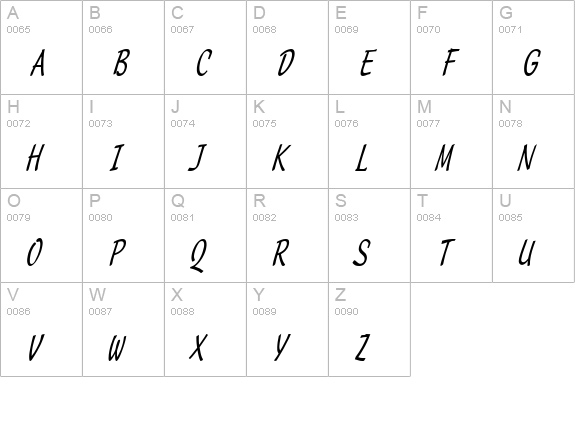
Manuscript Thin Italic is a delicate, low-contrast, italic variant in the Manuscript typeface family \xE2\x80\x94 well suited to fashion editorial, minimal branding, and high-contrast display.
The Manuscript Thin Italic font is a beautiful and elegant typeface that adds a touch of sophistication to any design project. Its thin and delicate strokes create an exquisite and refined appearance, making it perfect for invitations, wedding stationery, and other formal documents. Designed with precision and attention to detail, this font showcases a graceful italic style that exudes elegance and charm. Its flowing and slanted letterforms give a sense of movement and grace, making it ideal for adding a touch of sophistication to headings, titles, and quotes. What makes Manuscript Thin Italic even more remarkable is that it is available for free! You can easily download this font at FontsMarket.com, where you'll find an extensive collection of high-quality fonts. Whether you're a professional designer or an aspiring creator, this font offers a wealth of creative possibilities. With Manuscript Thin Italic, you can elevate your designs and make a memorable impression. Its versatility allows it to be used in a wide range of projects, from branding and packaging to editorial design and signage. It brings a sense of refinement and elegance to any layout, effortlessly capturing attention and conveying a message of sophistication. The Manuscript Thin Italic font is a must-have for anyone seeking to add a touch of class and refinement to their designs. Its timeless appeal and exquisite detailing will make your projects stand out from the crowd. Download it for free at FontsMarket.com and unlock a world of creative possibilities.